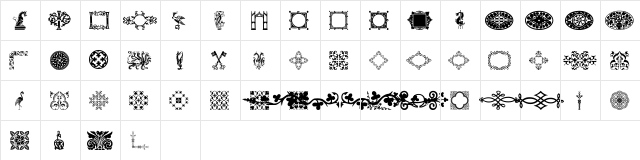
DBL MedievalDesign Regular
Design Context for DBL MedievalDesign Typeface
DBL MedievalDesign is a composed and adaptable typeface that performs quietly and consistently across a wide range of design contexts.